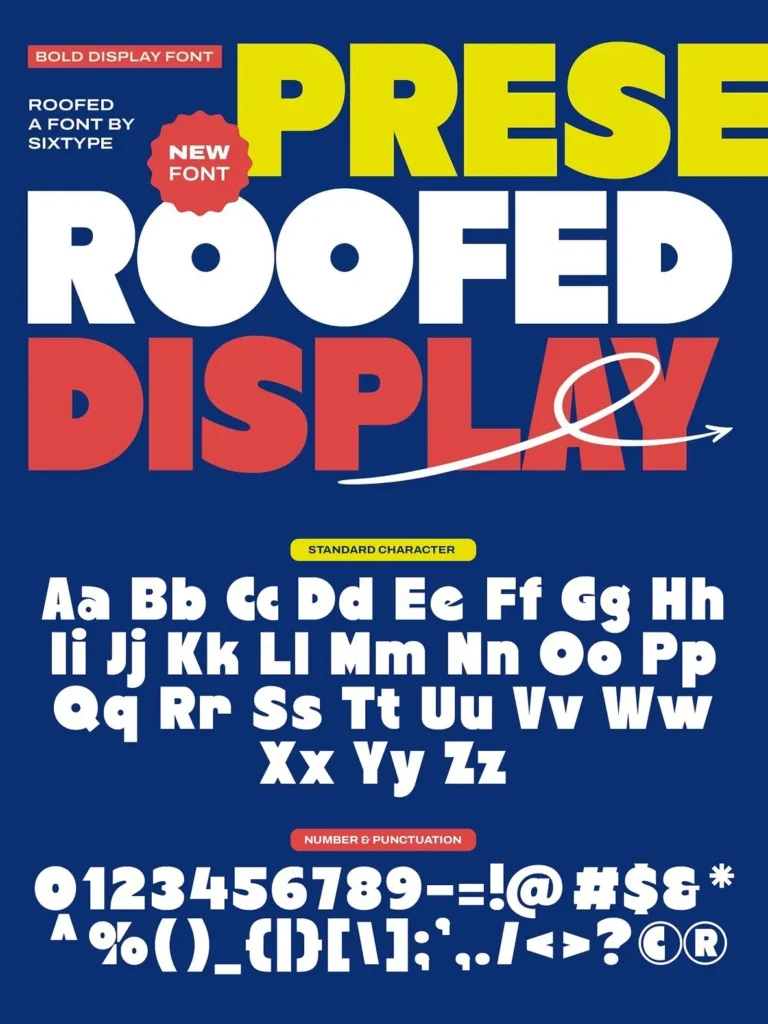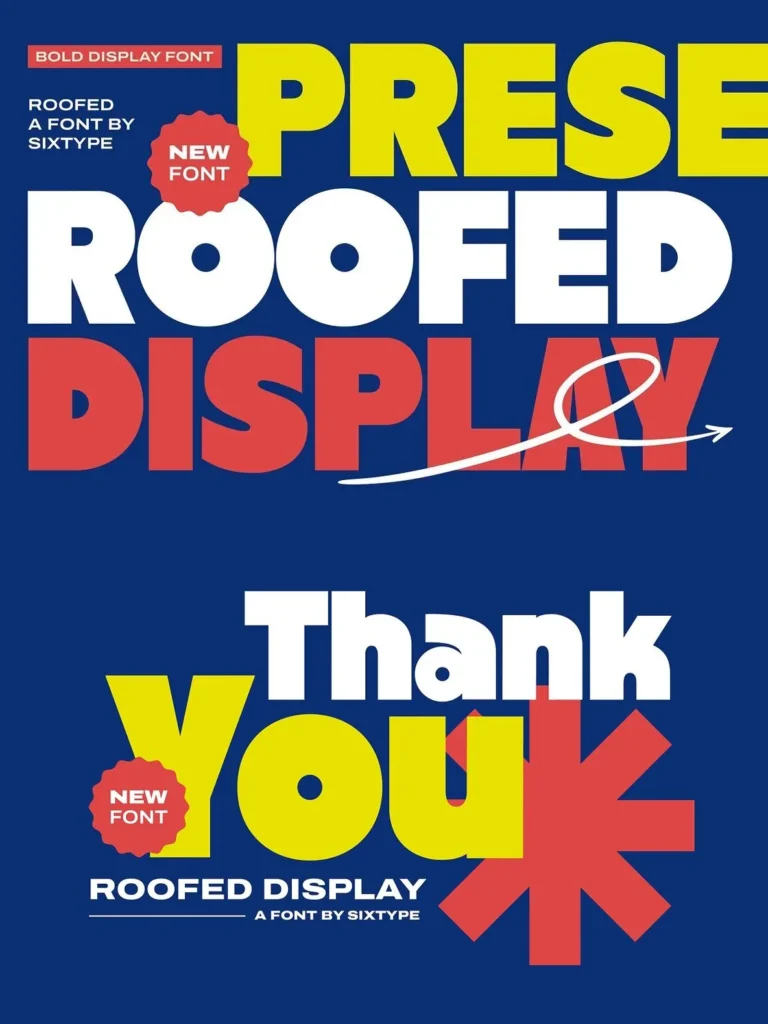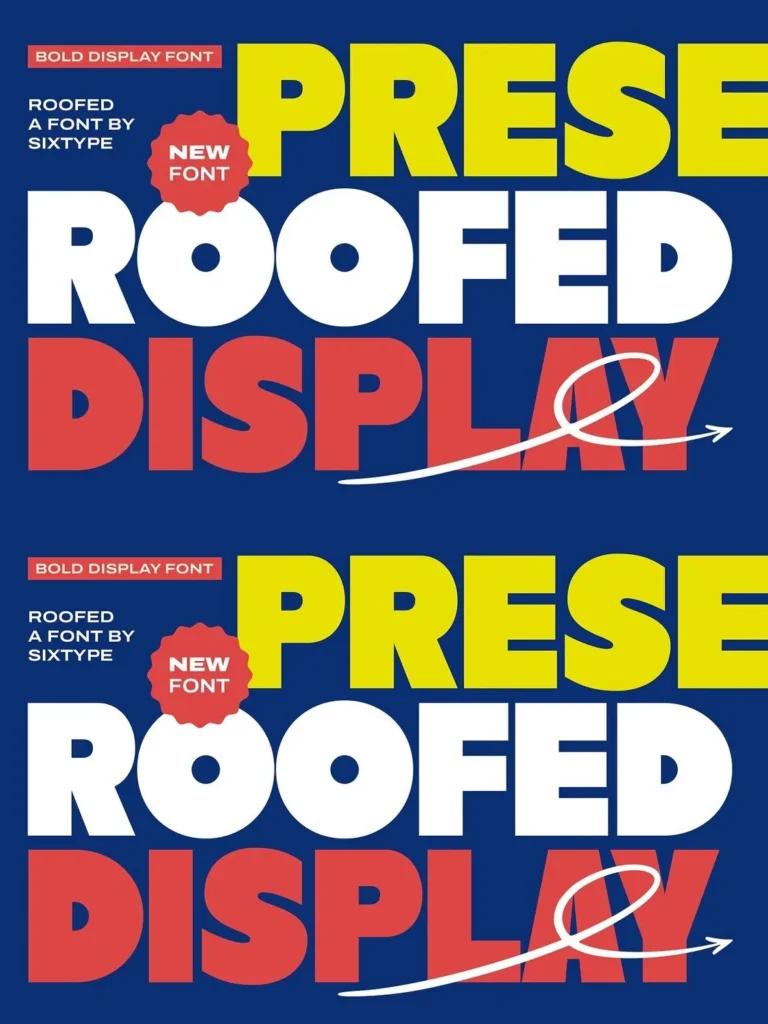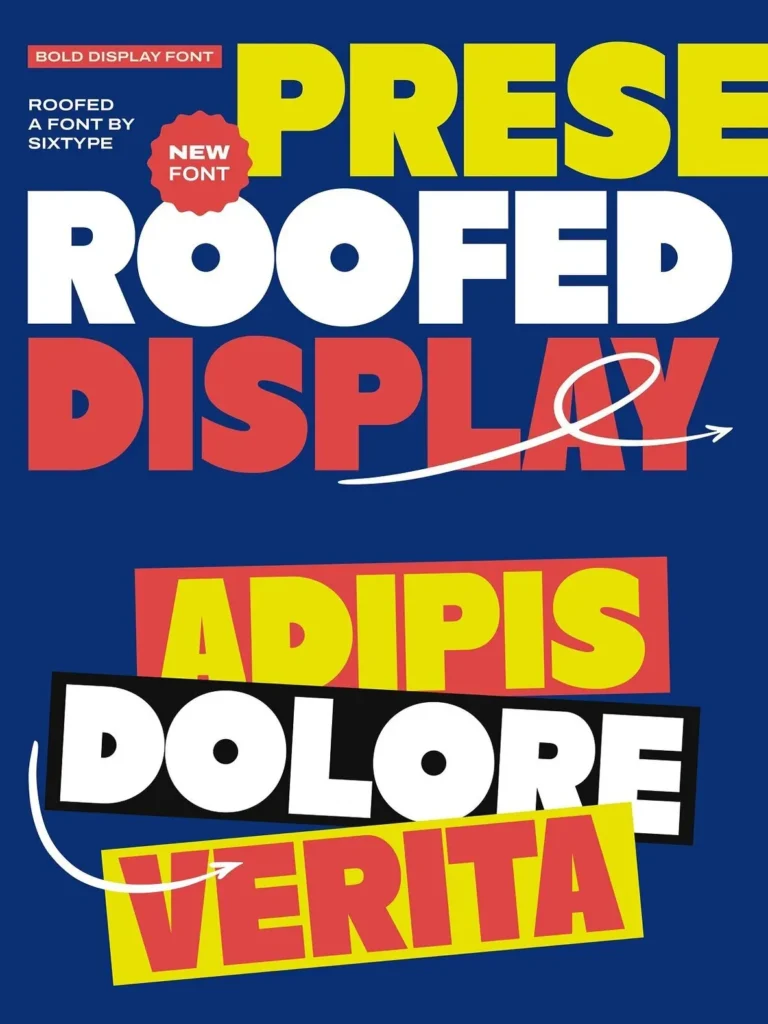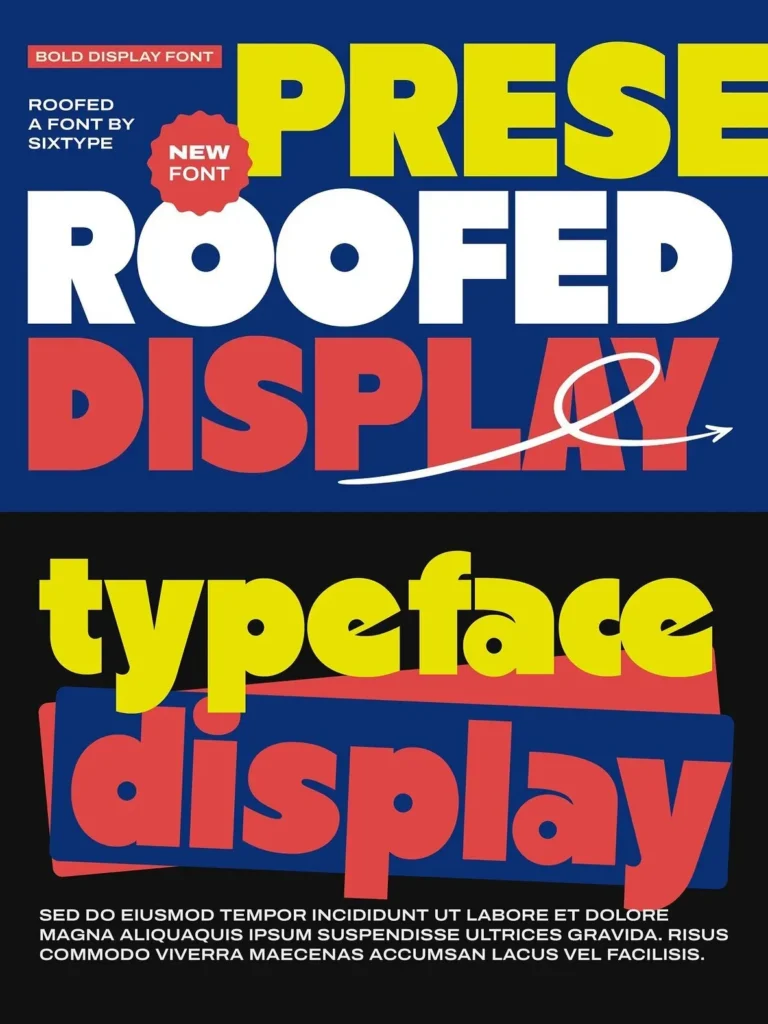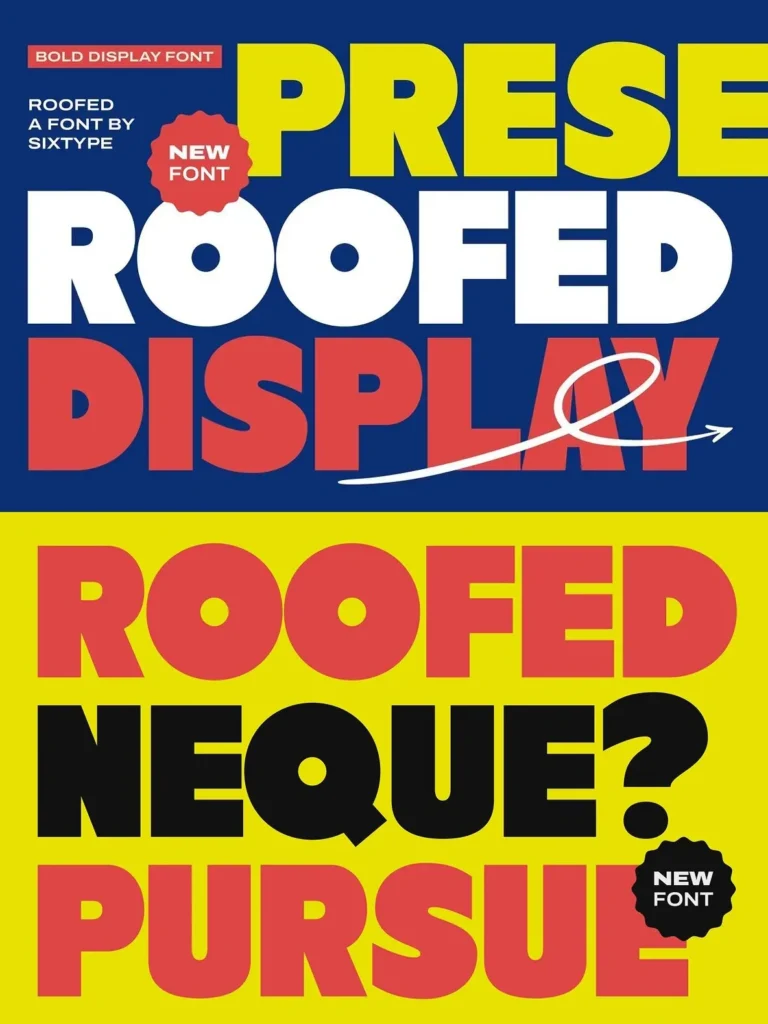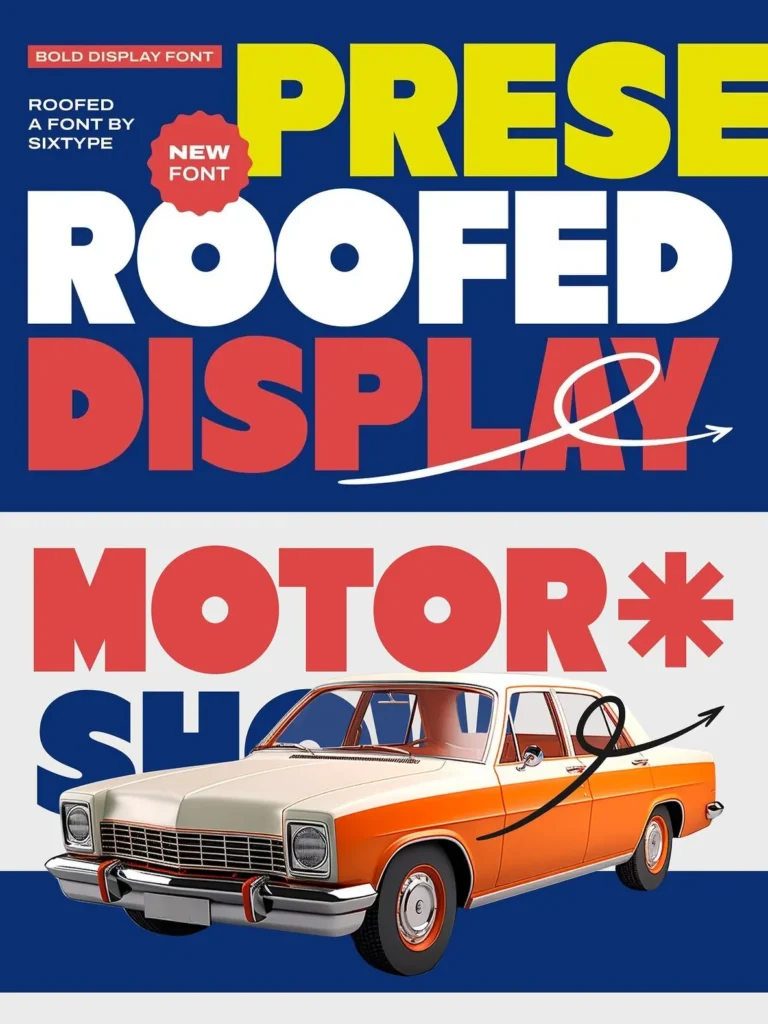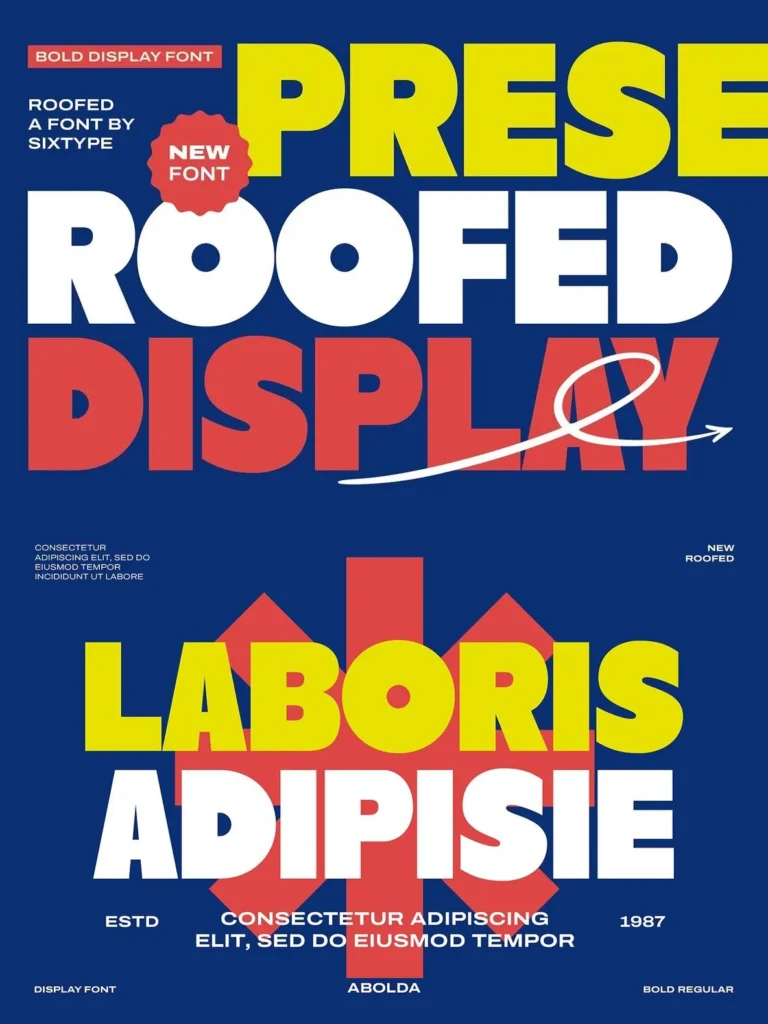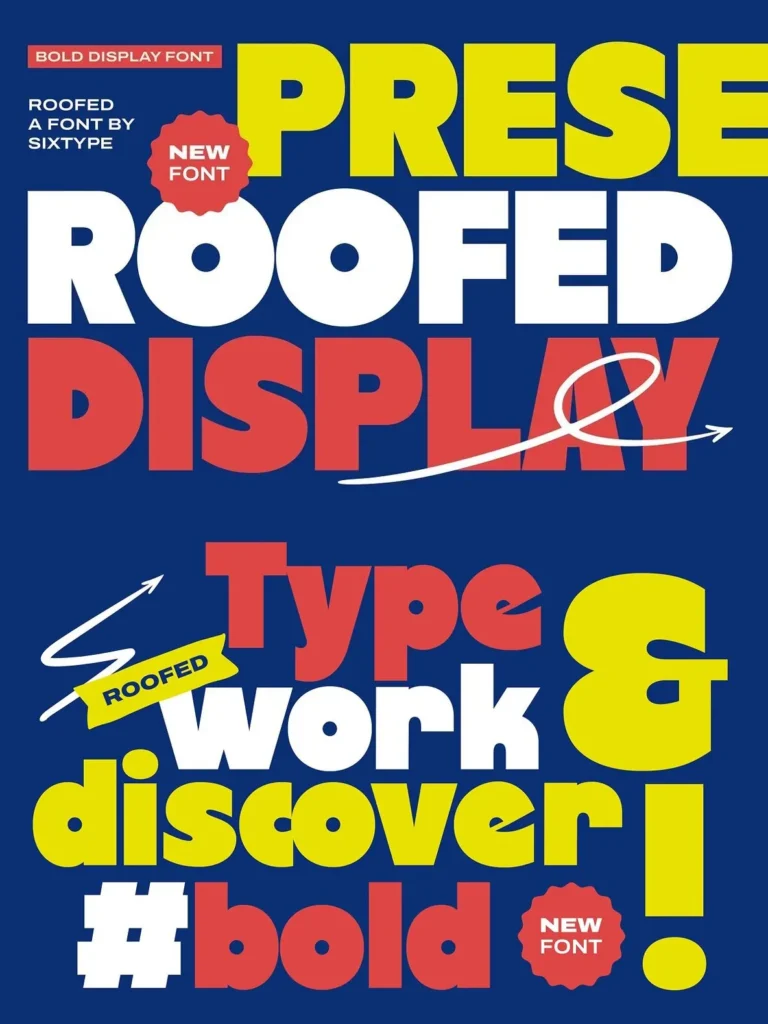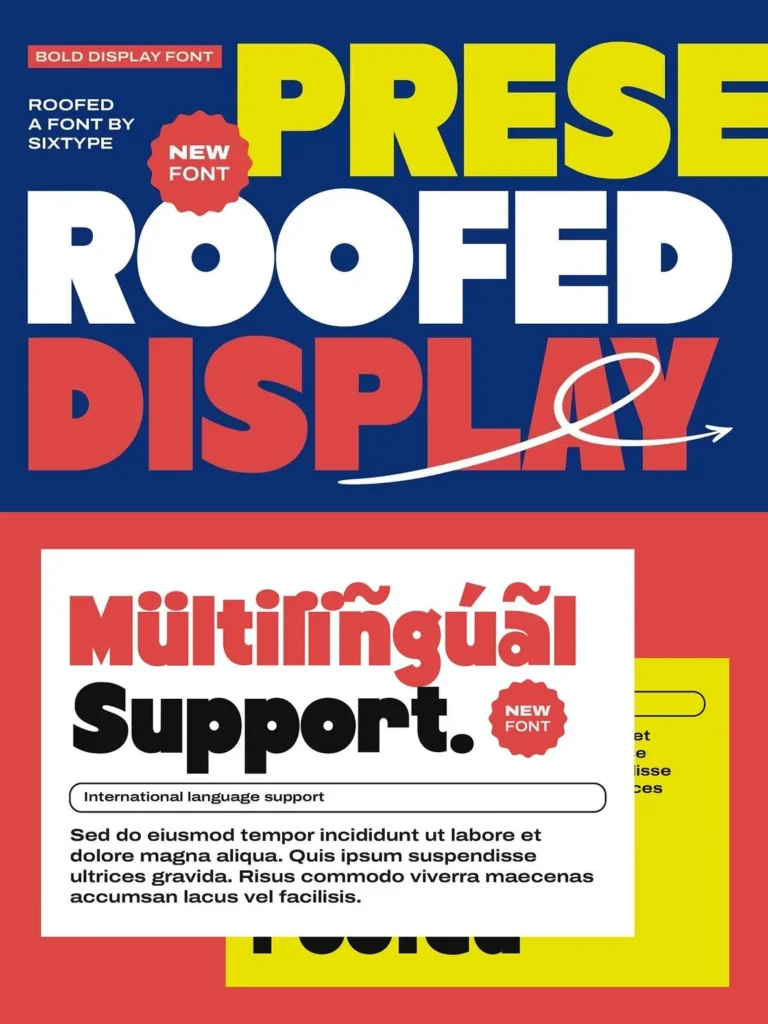
Roofed — Bold Playful Impact
Roofed is a bold display font with playful confidence, built to make a strong statement with a fun and self-assured spirit. Thick strokes, rounded shapes, and striking proportions give it high visual impact while keeping the tone friendly and approachable.
Designed for bold headlines and expressive typography, Roofed performs especially well at large sizes where clarity and personality matter. Its robust letterforms help messages stand out clearly and memorably in modern designs that need energy, boldness, and creativity. The font includes complete uppercase, lowercase, numbers, and punctuation for flexible display use.